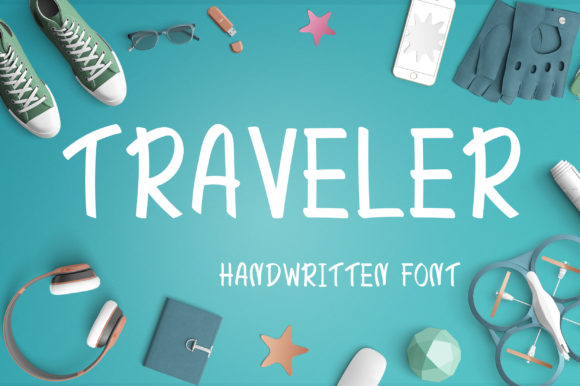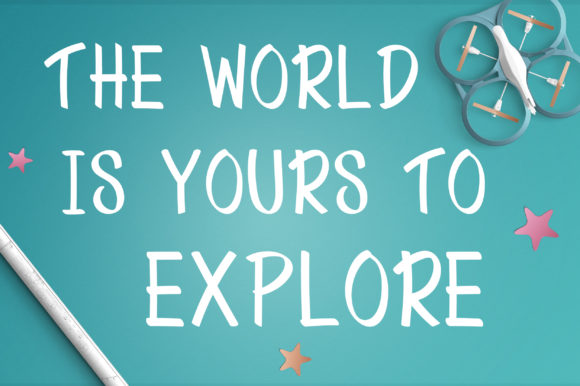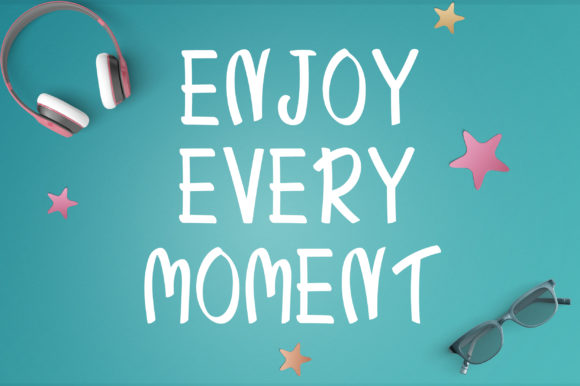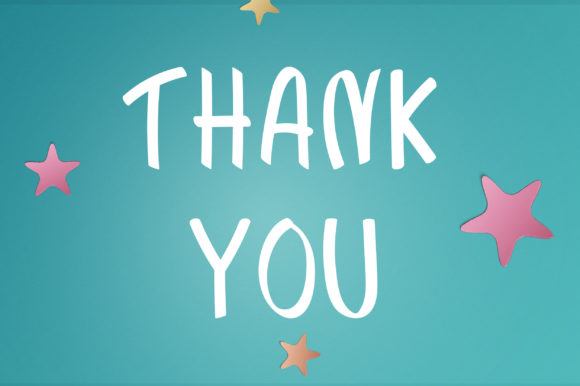
About Traveler Font
Traveler is a cute and casual handwritten font with an incredibly friendly feel. It will elevate a wide range of design projects to the highest level, be it branding, headings, wedding designs, invitations, signatures, logos, labels, and much more!